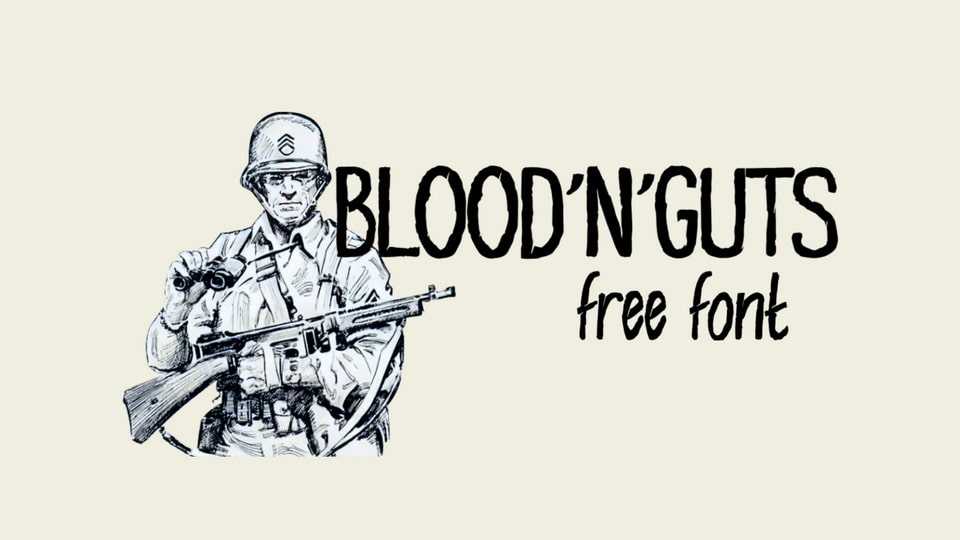
Download Blood’n’guts font, a hand-crafted typeface inspired by the vintage war and action comics from the 50s, with bold and dynamic lettering that evokes the thrill and excitement of those stories.
Designer: Sandrine Bascouert